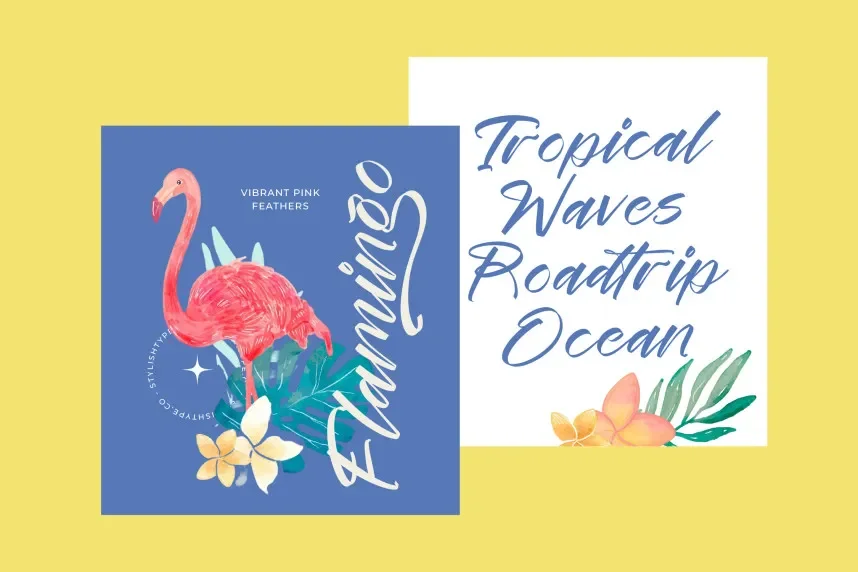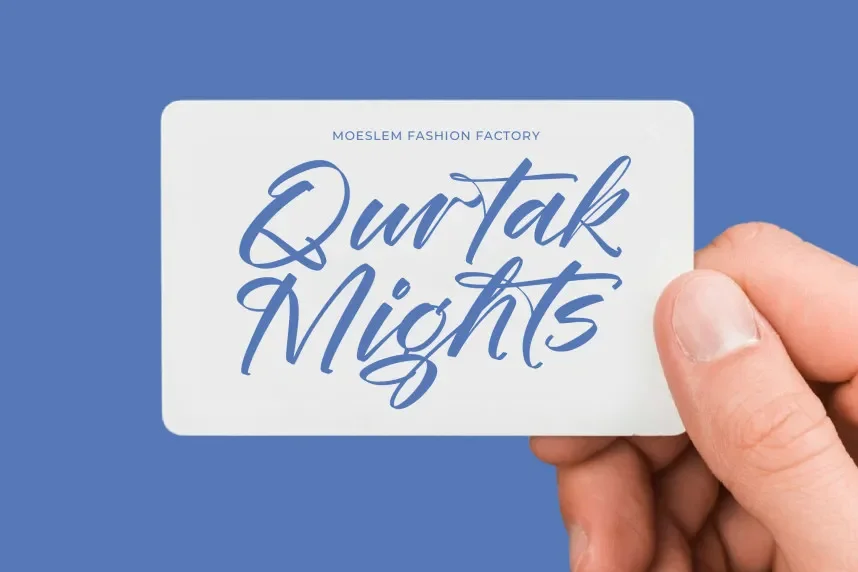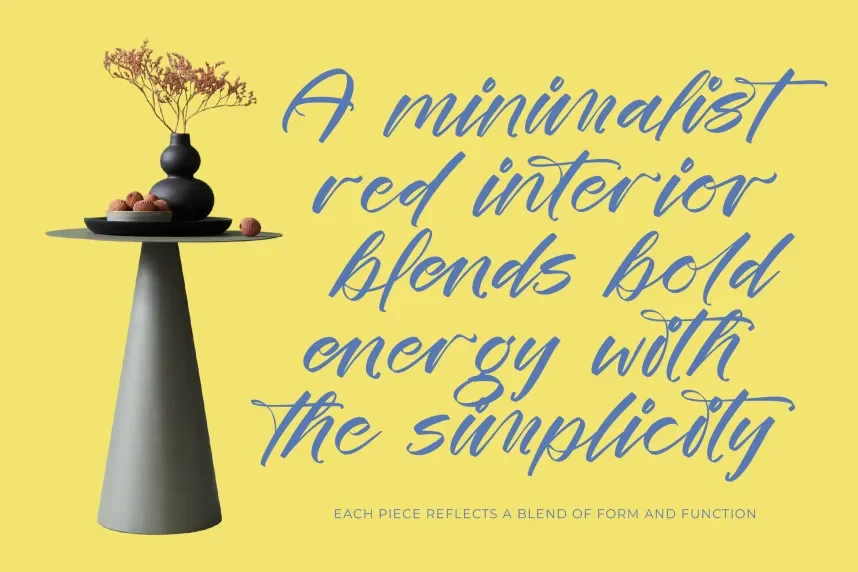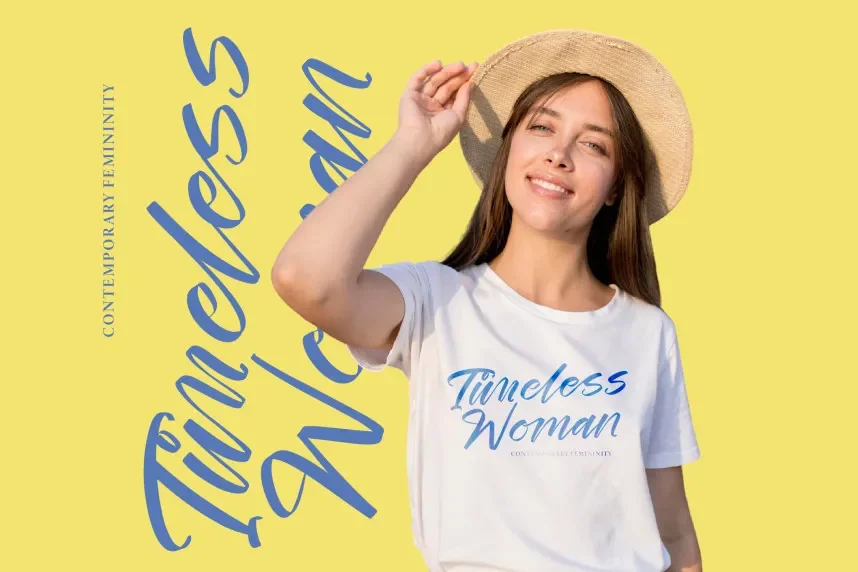
Festival Routes Font is a modern script typeface designed for smooth, connected lettering. Designers often need script fonts that feel expressive but remain readable. Festival Routes meets that need with controlled curves and stable connections.
This font belongs to the script category. Its letterforms feature gentle stroke contrast, rounded terminals, and consistent slant. The font maintains clarity in short phrases and branding elements.
Festival Routes works well for logos, event invitations, branding, social media graphics, and packaging. Designers often pair it with a clean sans-serif for longer text.